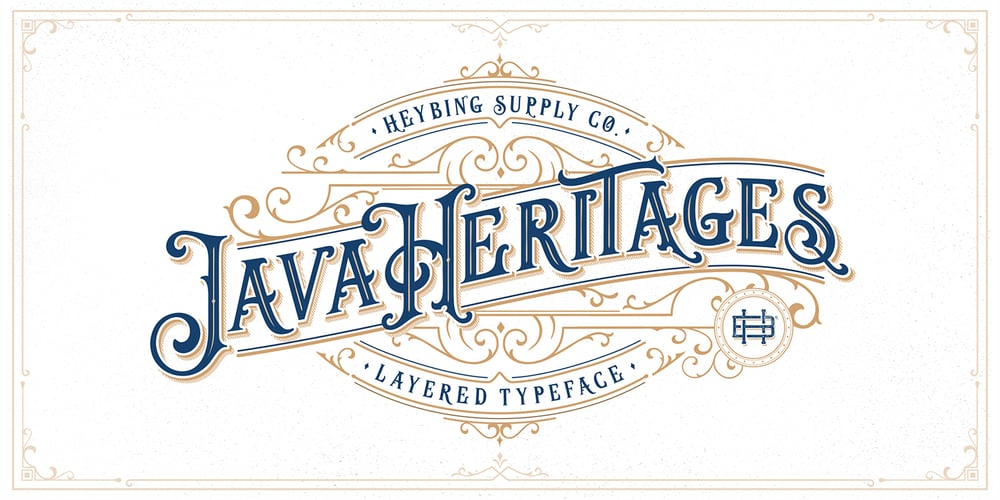
Java Heritages
Java Heritages font
Java Heritages Font Family was designed by Bing Febby Aldiansyah and published by Heybing Supply Co. Java Heritages contains 5 styles and family package options. Java Heritages Typeface is a multi-layered type family with opentype features, inspired by vintage signage that have unique decorative shapes. Comes with 4 font system that can be layered to create different effect (Regular, Drop Shadow, Inner Shadow & Inline). Java Heritages Typeface includes a full set of character A-Z, as well as multi-lingual support, currency figures, numerals, and punctuation. Java Heritages Typeface family is perfect for logotype, gig poster, letterhead, dropcap, titles, and any artworks.